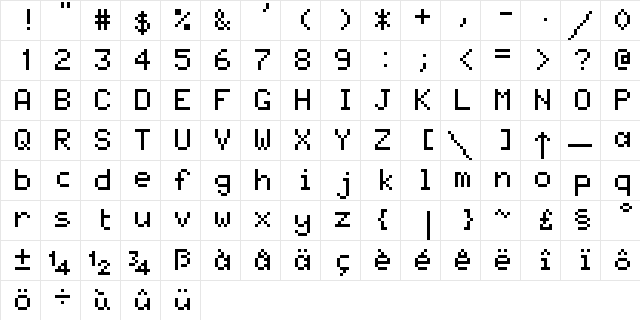
Minitel Regular
Design Context for Minitel Typeface
Minitel offers clean, dependable letterforms without strong stylistic allegiance, making it a practical choice for designers who need flexibility.
Pro Tip: Use Minitel in both headline and body roles to test its range before committing to a single application.